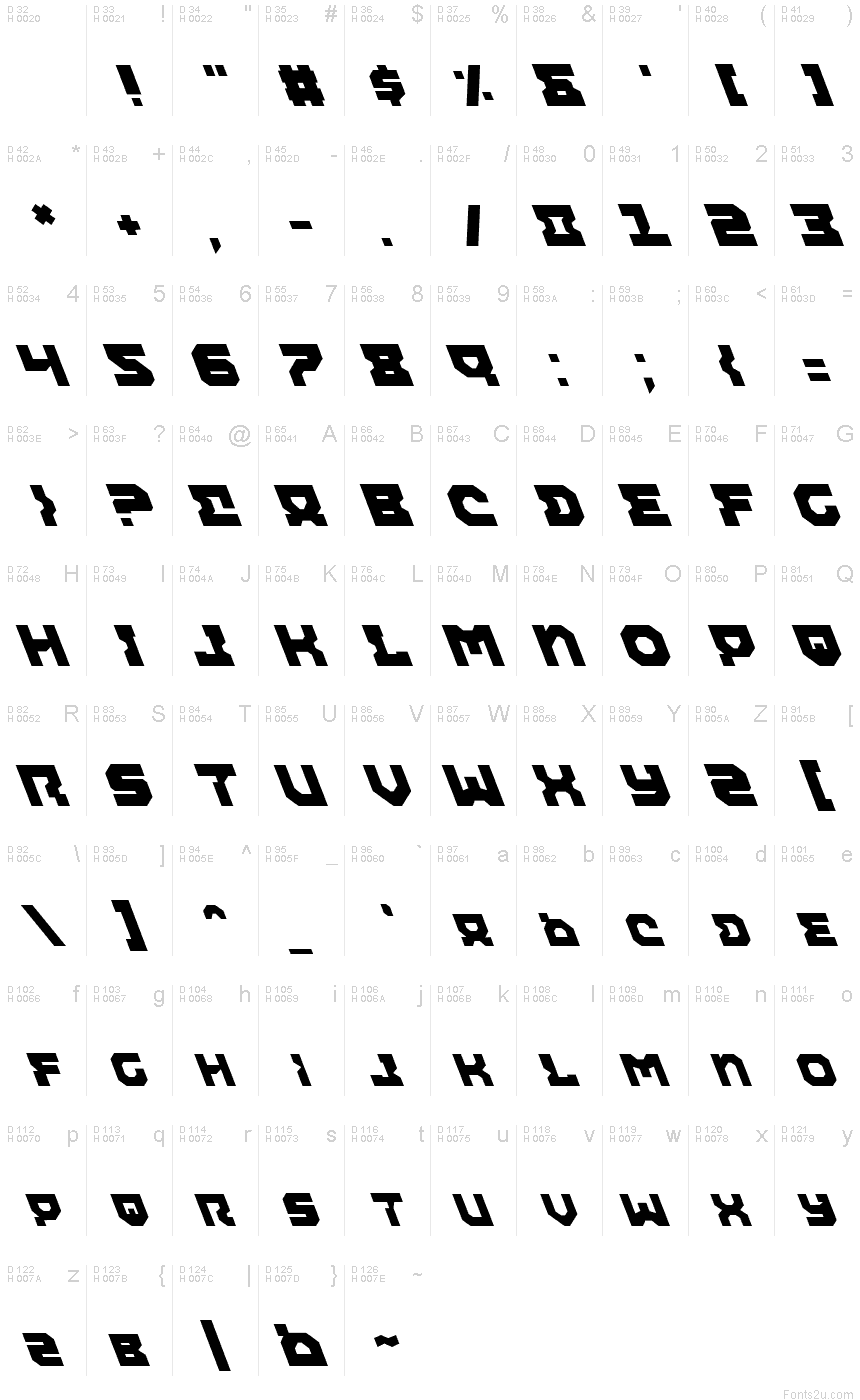
Airacobra Leftalic
Airacobra Leftalic font by Iconian Fonts is a free techno display typeface that looks like it’s already in motion, even when it’s standing still. Each letter slashes sharply to the left, with chunky, faceted shapes that feel like armored plating on a futuristic vehicle. The tight, angular rhythm and crisp negative spaces give it a high-energy, aggressive voice that grabs attention in an instant.
Using Airacobra Leftalic, you can push momentum into esports logos, racing titles, sci‑fi posters, game covers, streaming overlays, and bold tech branding. This free font shines when it’s set large, letting those diagonal strokes and blocky contours really show their muscle. For balance, pair it with a clean, neutral sans serif for body copy, and let Airacobra handle the loud, high-impact headlines.